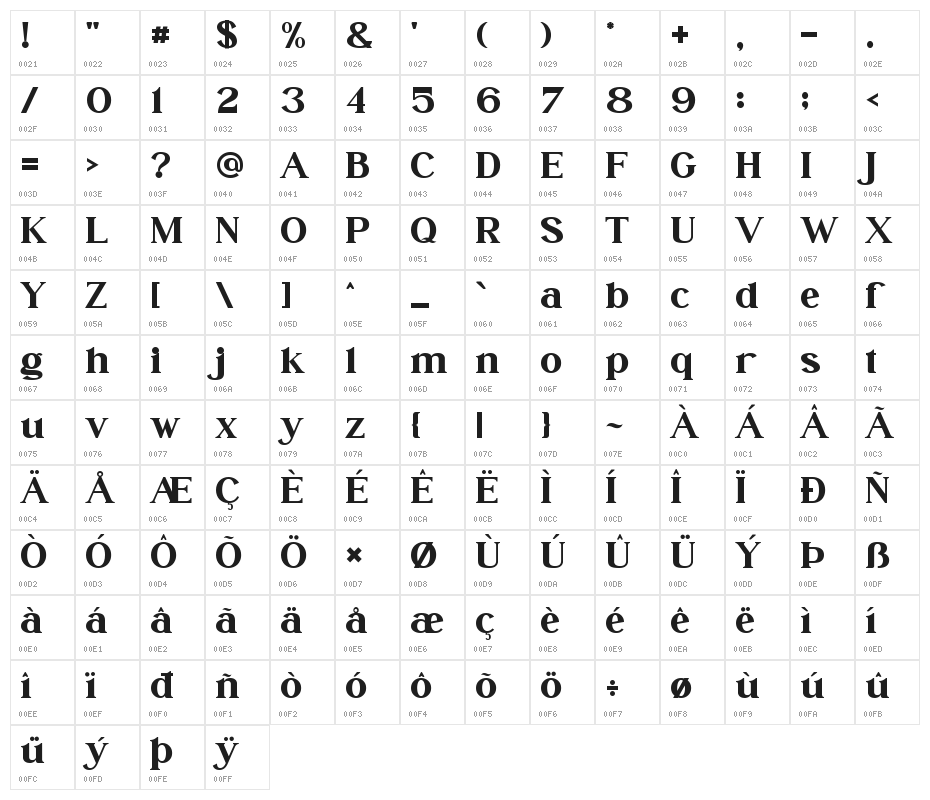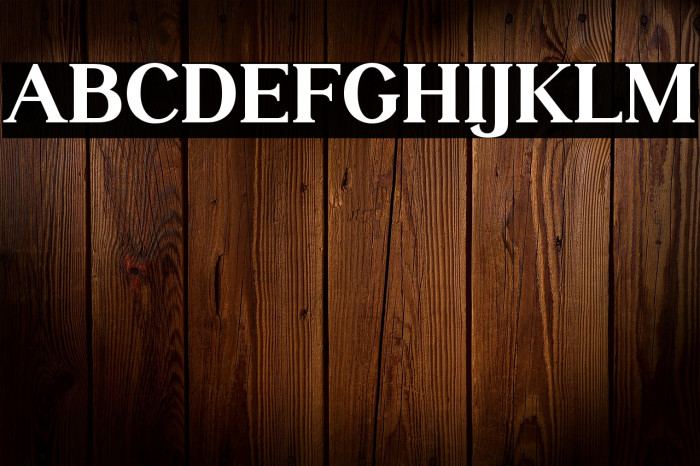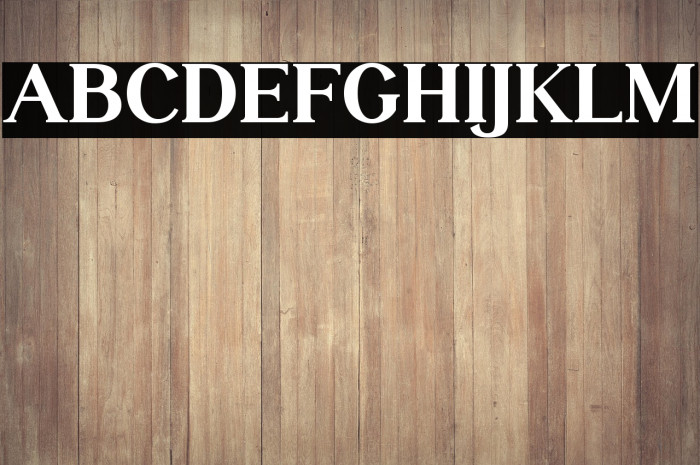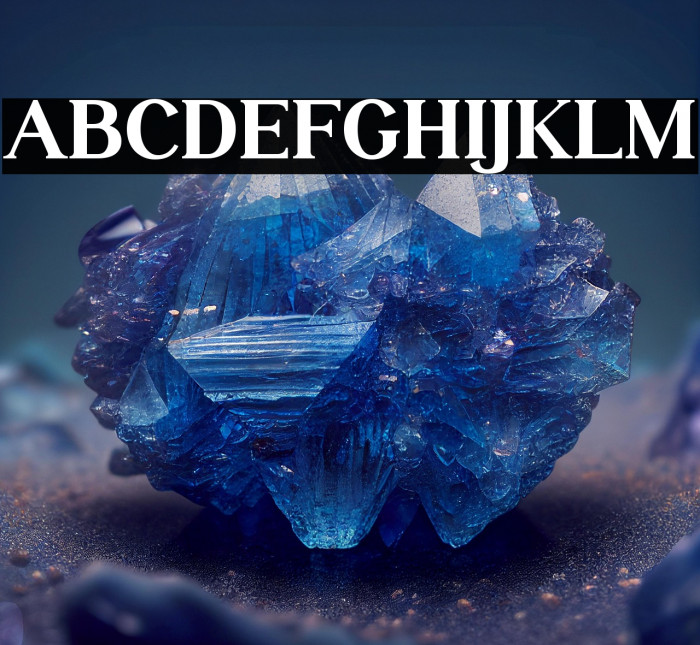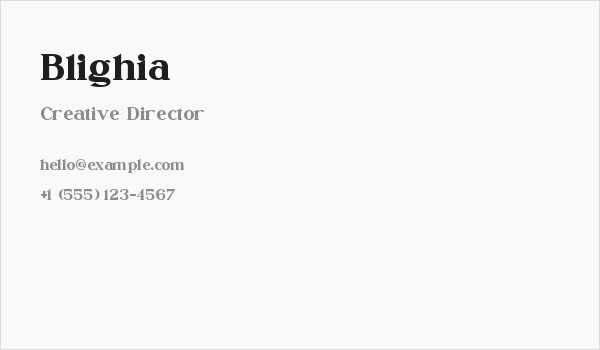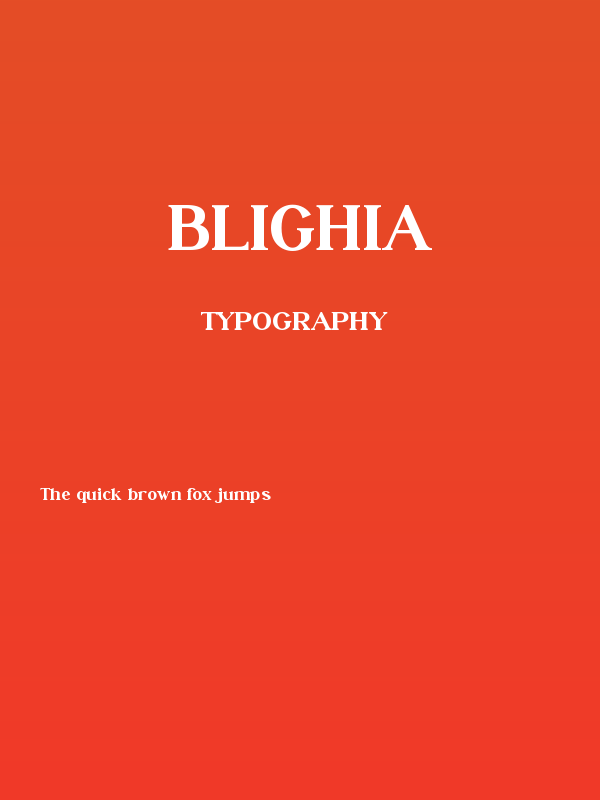
Blighia Font
Blighia Description
This font exhibits a classic serif style with strong, bold strokes and high contrast between thick and thin lines. The serifs are pronounced and sharp, giving the typeface a formal and authoritative appearance. The uppercase letters are uniform in height and width, while the lowercase letters maintain a consistent x-height, contributing to a balanced and readable text. The numerals are proportionate and align well with the overall design, ensuring clarity in numerical data. Special characters are distinct and maintain the font's elegant style, making it versatile for various applications.
| Proposed Projects | This font is well-suited for projects requiring a formal tone, such as book covers, editorial layouts, corporate branding, and legal documents. |